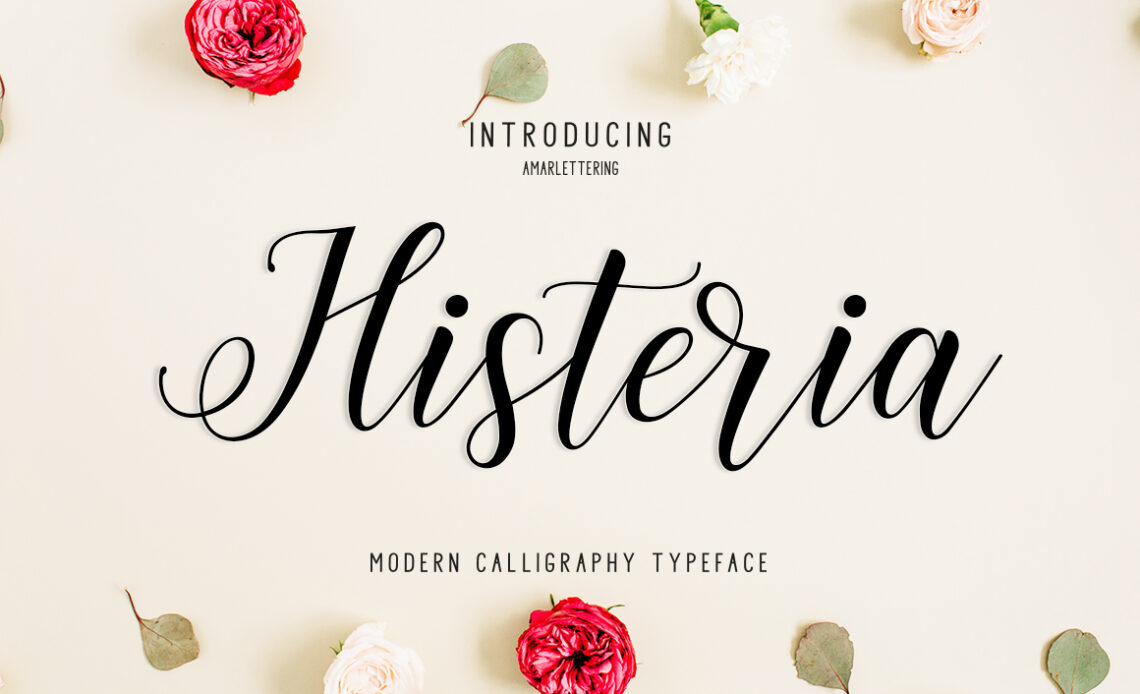
Journey into the realm of handwritten elegance with Histeria Script Font, a captivating script font that dances across your designs with a touch of playful sophistication. Born from the creative mind of Amarlettering, Histeria Script is not just a font; it's an expression of personality, a testament to the beauty of handwritten artistry.
Immerse yourself in the world of Histeria Script and discover a variable baseline that breathes life into your designs. This unique feature allows the font to mimic the natural flow of handwriting, creating a sense of authenticity and charm. Say goodbye to stiff and rigid lines, and welcome the graceful curves and subtle variations that make Histeria Script so captivating.
Picture yourself crafting stunning headlines that leap off the page, demanding attention with their playful elegance. Histeria Script's large format capabilities make it the perfect choice for creating eye-catching posters, logos, and banners. Transform your designs into cohesive masterpieces, where every element harmoniously blends together, creating a visual symphony that resonates with your audience.
With Histeria Script, you hold the key to unlocking a world of creative possibilities. Its versatility extends beyond headlines and large formats, inviting you to explore its potential in branding, social media graphics, and greeting cards. Unleash your imagination and let Histeria Script guide you through a journey of visual storytelling, where words dance with grace and emotions flow freely.
Don't settle for ordinary fonts that blend into the background. Embrace the captivating charm of Histeria Script and watch your designs come alive. As you witness the transformation unfold before your eyes, you'll discover a newfound appreciation for the power of typography. Histeria Script isn't just a font; it's an experience, an invitation to let your creativity soar and captivate the hearts of your audience.